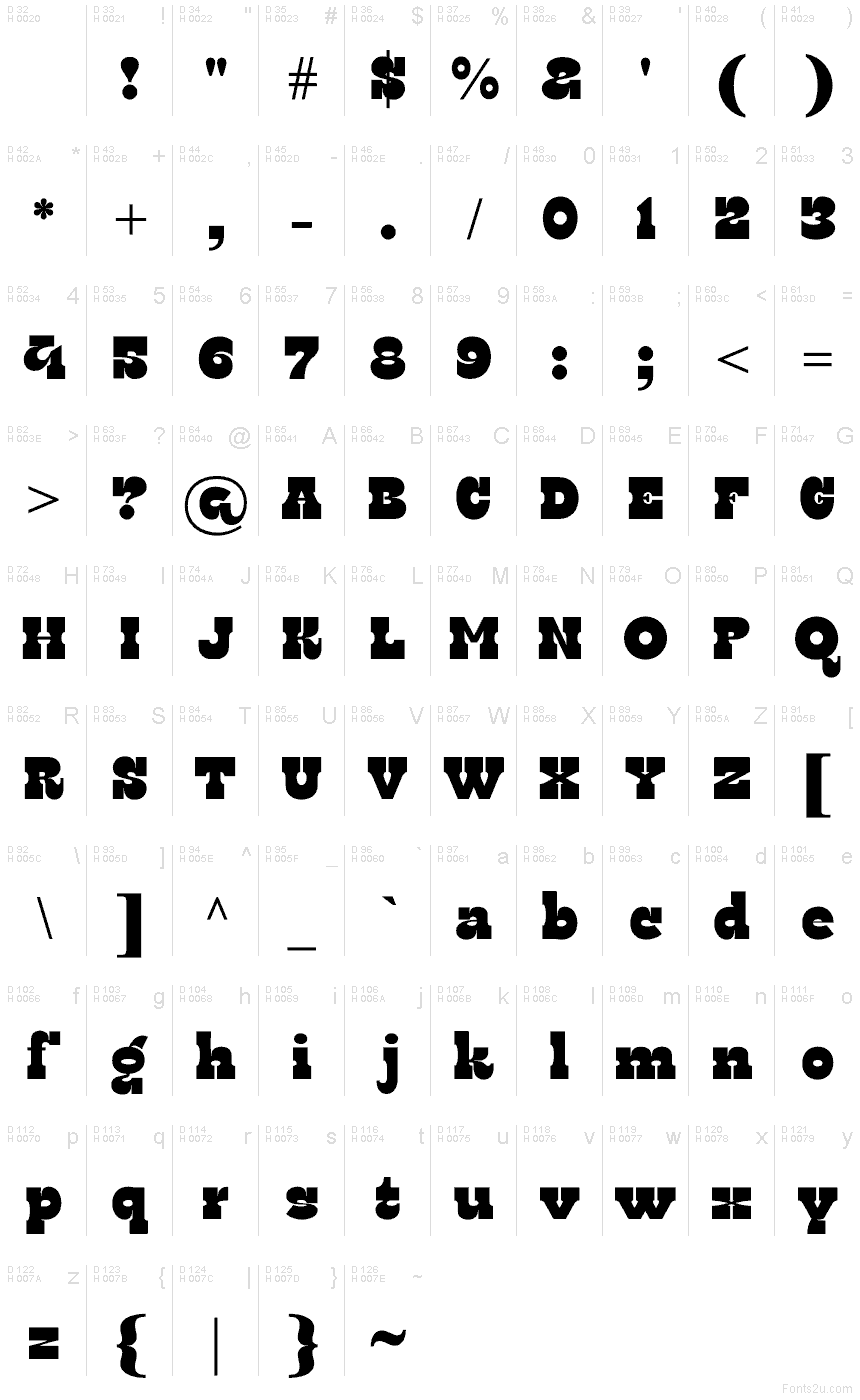
Ratego
Ratego font by RantautypeStudio is a free retro display typeface that hits you with bold, inky curves and chunky silhouettes right out of the gate. Its letterforms feel almost sculpted, with oversized bowls, tight counters, and playful, stomping shapes that look like they’ve been cut from black paper. There’s a funky, 70s-soaked energy here—think poster headlines and album covers with a thick, velvety presence that instantly owns the page.
Using Ratego, you get a statement piece for branding, posters, packaging, event flyers, merch, and bold social graphics where subtlety isn’t the goal. This free font loves big sizes, so let it roar in headlines and pair it with a clean, light sans serif for small supporting text. When you need something loud, groovy, and irresistibly graphic, Ratego turns simple words into visual hooks.